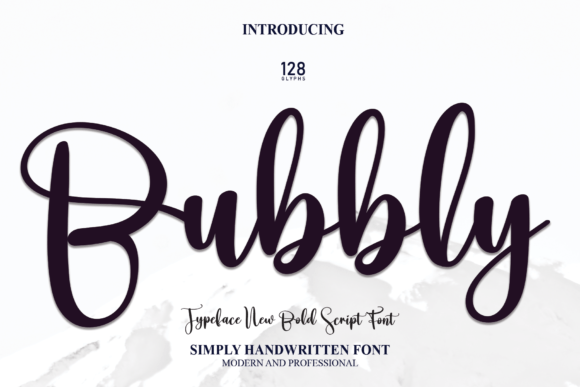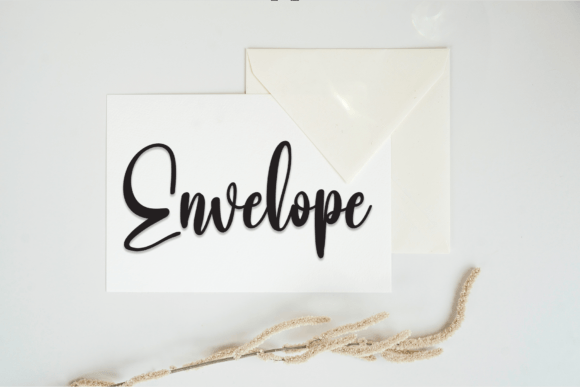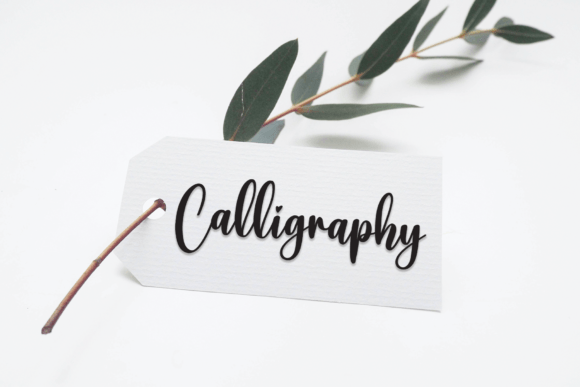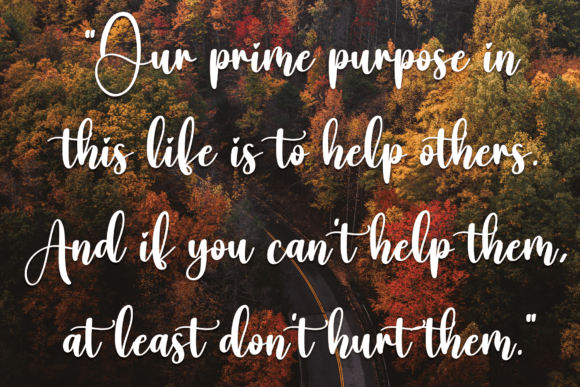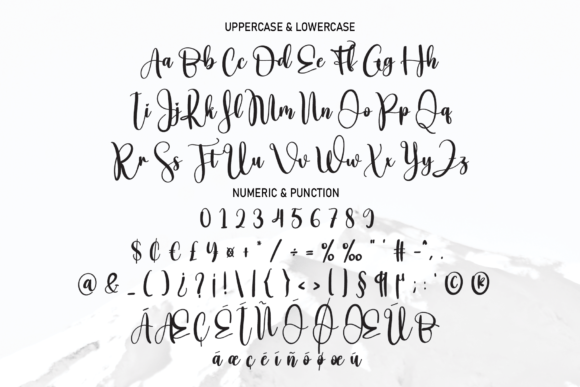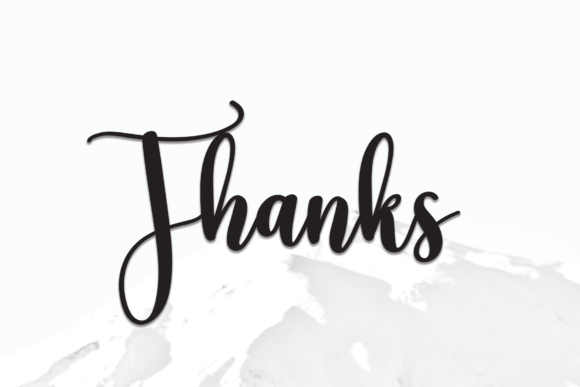
Bubbly Font
About Bubbly Font
The most recent style of this font introduces letters that are exceptionally well-suited for an extensive range of creative applications. From commanding wall displays to the refined elegance of wedding invitations, from making a memorable statement in social media post logos to capturing attention in advertisements, this font’s latest style stands out as a versatile and essential choice for designers.
In the realm of product packaging and design, these letters bring a contemporary flair, infusing a personalized touch into labels, product designs, and packaging aesthetics. Photographers find in this font a valuable tool for watermarking, seamlessly integrating a handwritten taste into the visual identity of images.
The font’s adaptability extends gracefully to invitations and stationery, where each letter contributes to an atmosphere of warmth and individuality. Whether crafting a personalized label, designing an eye-catching social media post, or refining the details of product packaging, this font imparts a distinct handwritten charm that enhances the overall visual appeal of any project.
Imagine these letters gracing a wedding invitation, where their stylish strokes add a touch of romance and sophistication. Visualize them in a social media post logo, capturing the essence of uniqueness and creativity. Envision the font seamlessly integrated into product packaging, enhancing the consumer’s experience with a personalized and tasteful touch.
In the design landscape, this font’s latest style is more than a typeface; it’s a design element that transforms the ordinary into the extraordinary. Its contemporary aesthetic ensures relevance across diverse projects, while its handwritten charm adds a layer of authenticity and creativity.
Whether you’re a graphic designer working on advertisements, a bride-to-be envisioning the perfect wedding invitation, or a business owner aiming for a distinctive product design, the latest style of this font opens the door to a world of creative possibilities. With each letter, it breathes life into your projects, infusing them with a handwritten taste that leaves a lasting impression.